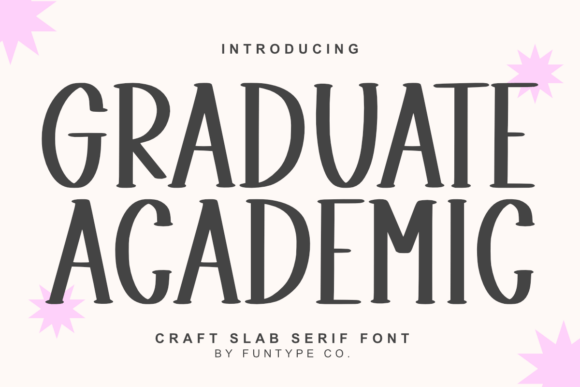
Introducing Graduate Academic: The Modern Slab Serif Font for Bold and Distinctive Designs
In the world of typography, fonts play a crucial role in conveying messages, expressing emotions, and creating visual identities. For crafters, graphic designers, and creative professionals, finding the right font can make all the difference in elevating their projects to the next level. This is where Graduate Academic comes in – a modern slab serif font designed to add a bold and distinctive touch to your creative endeavors.
The Graduate Academic Font: A Strong yet Friendly Typeface
Graduate Academic is a versatile typeface that brings a strong yet friendly feel to any design. Its modern slab serif design makes it perfect for a wide range of applications, from branding and advertising to packaging and digital media. The font’s bold and distinctive style ensures that your message stands out, while its friendly tone makes it approachable and engaging.
Key Features of Graduate Academic
- Modern Slab Serif Design: Graduate Academic boasts a sleek and contemporary slab serif design that is both stylish and legible.
- Bold and Distinctive: The font’s bold style ensures that your message grabs attention, while its distinctive tone sets it apart from more traditional typefaces.
- Versatile: Graduate Academic is perfect for a wide range of applications, including branding, advertising, packaging, and digital media.
- Easy to Read: Despite its bold style, Graduate Academic remains highly legible, making it perfect for use in body text, headlines, and titles.
Why Choose Graduate Academic?
With so many fonts available, why choose Graduate Academic? Here are just a few reasons why this modern slab serif font stands out:
- Uniqueness: Graduate Academic offers a fresh and distinctive take on traditional slab serif fonts, ensuring that your designs stand out from the crowd.
- Flexibility: The font’s versatility makes it perfect for use in a wide range of applications, from print to digital media.
- Legibility: Graduate Academic’s clear and readable design ensures that your message is communicated effectively, regardless of the application.
- Professionalism: The font’s modern and sleek design gives your projects a professional and polished look, perfect for crafters, graphic designers, and creative professionals.
Using Graduate Academic in Your Designs
Graduate Academic is perfect for a wide range of design applications, including:
- Branding and Identity: Use Graduate Academic to create bold and distinctive logos, business cards, and letterheads that make a lasting impression.
- Advertising and Marketing: The font’s bold style makes it perfect for use in advertising and marketing materials, such as brochures, flyers, and posters.
- Packaging: Graduate Academic’s modern and sleek design makes it ideal for use in packaging design, adding a touch of sophistication and elegance to your products.
- Digital Media: The font’s legibility and versatility make it perfect for use in digital media, including websites, social media graphics, and presentations.
Tips for Getting the Most out of Graduate Academic
To get the most out of Graduate Academic, here are a few tips to keep in mind:
- Experiment with Font Sizes: Graduate Academic’s bold style makes it perfect for use in headlines and titles, but don’t be afraid to experiment with different font sizes to create visual interest.
- Play with Color: The font’s modern design makes it perfect for use with a wide range of colors, so don’t be afraid to get creative and experiment with different color schemes.
- Mix and Match: Graduate Academic pairs perfectly with a wide range of fonts, so don’t be afraid to mix and match to create a unique and distinctive look.
In conclusion, Graduate Academic is a modern slab serif font that is perfect for adding a bold and distinctive touch to your creative projects. Its strong yet friendly design makes it versatile and easy to use, while its legibility and professionalism make it perfect for a wide range of applications. Whether you’re a crafter, graphic designer, or creative professional, Graduate Academic is the perfect choice for elevating your designs to the next level.